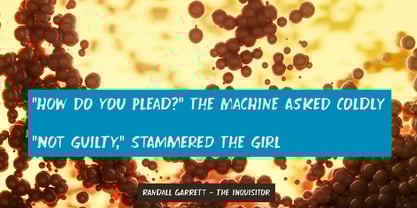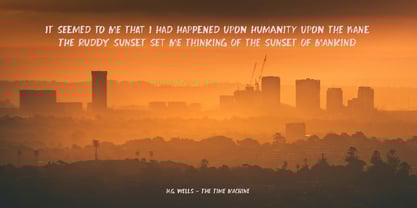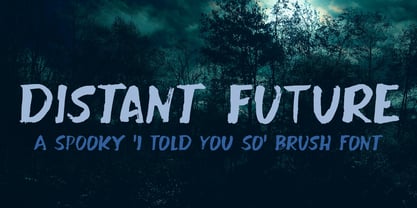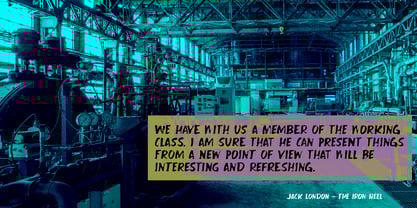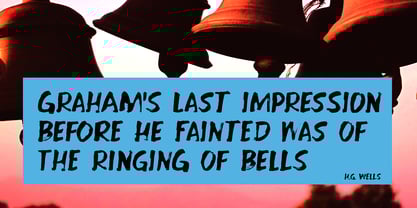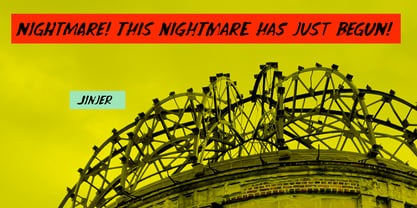
Distant Future
by Kitchen Table Type Foundry
The Distant Future Font Family was designed by David Kerkhoff and published by Kitchen Table Type Foundry. Distant Future contains 2 styles and family package options.
Distant Future is a bit of a strange font: it looks spooky, it may even be scary, but underneath all that grunge is a really sophisticated font. Of course, you can use it for your protest signs, your posters, your halloween websites and anything that needs a bit of horror, but it would look soooo good on product packaging and book covers as well. So, go ahead and give it a whirl!
Distant Future